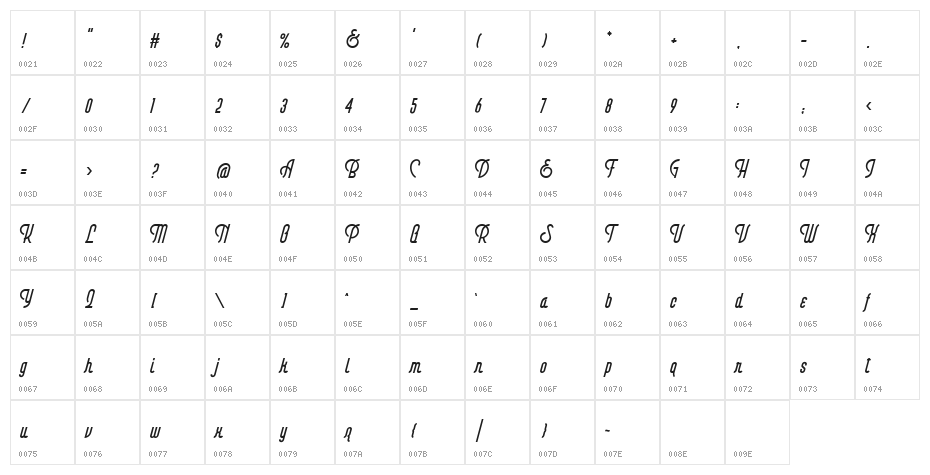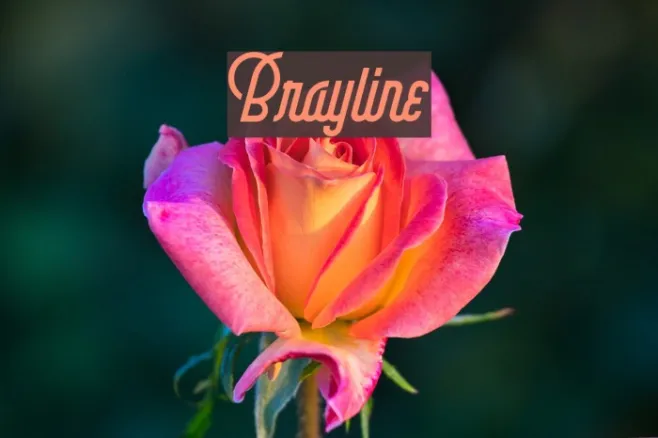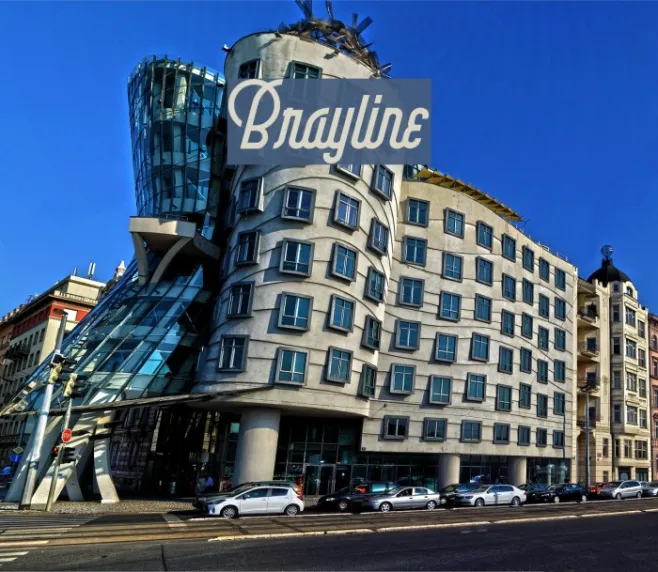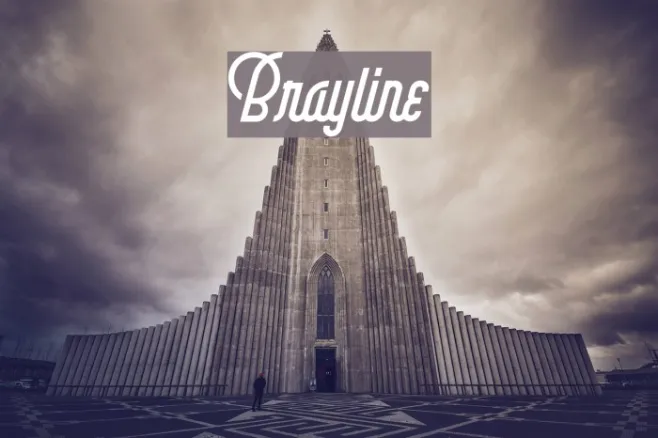
Brayline Font
Brayline Description
This font exhibits a dynamic and elegant script style with a modern twist. The uppercase letters are characterized by their flowing, cursive forms, which are slightly slanted, adding a sense of movement and sophistication. The lowercase letters maintain a consistent style, with smooth curves and a slight slant, enhancing readability while retaining an artistic flair. The numerals are designed to complement the letters, featuring similar curves and angles. Special characters are crafted with the same attention to detail, ensuring a cohesive look across all glyphs. The overall appearance is both stylish and versatile, making it suitable for a variety of design applications.
| Proposed Projects | Ideal for wedding invitations, branding, logo design, and elegant packaging. |